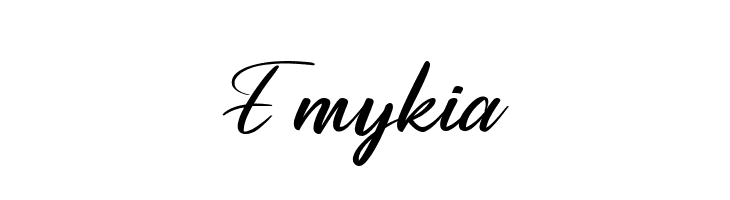
A playful and elegant script font with smooth, flowing letters.
A graceful and elegant script font with flowing curves and decorative swashes.
A lively, expressive script font with a handwritten feel and medium contrast.
An elegant script font with flowing, cursive letters and ornate details.
A charming and fluid script font with elegant, flowing letterforms.
A playful and elegant script font with a handwritten style and decorative flourishes.